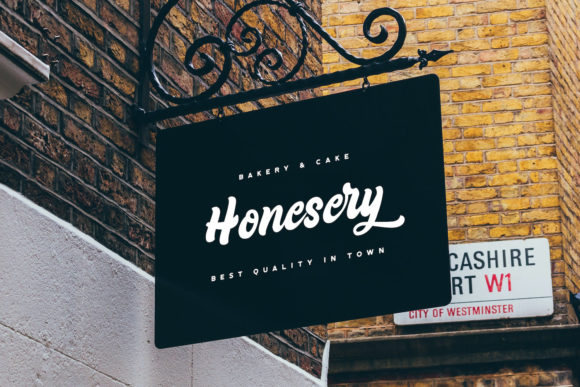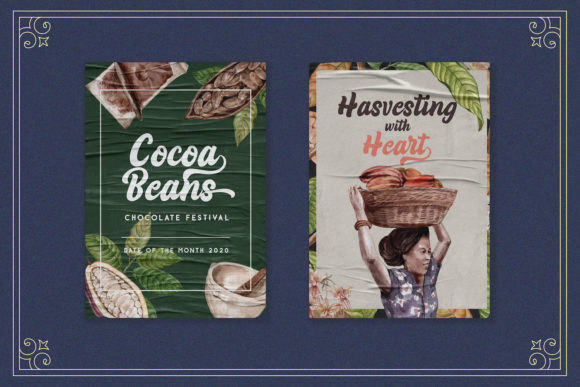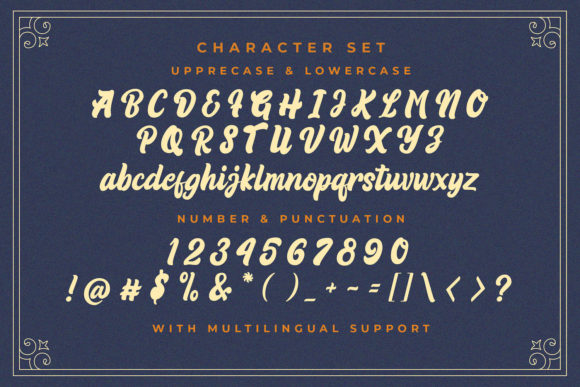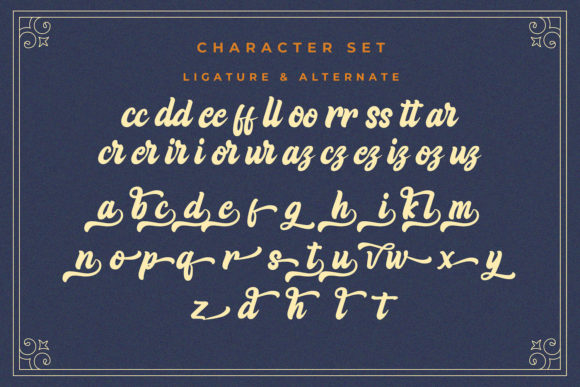
About Rizta Hafiq Font
Rizta Hafiq is a vintage script font with bold and retro glyphs that have unique swashes that make it perfectly suited to be used in packaging designs, advertising, and brand identities! This font is PUA encoded which means you can access the available glyphs and swashes with ease!